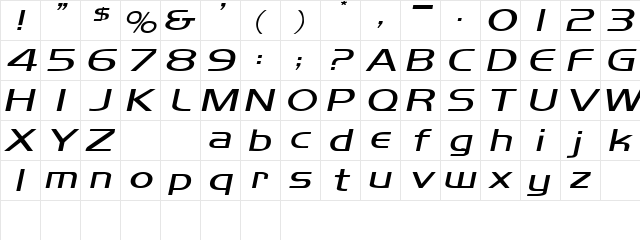
MikityExtended Italic Font Preview
MikityExtended Italic
MikityExtended Italic Font Details
Design Context for MikityExtended Typeface
MikityExtended is a composed and adaptable typeface that performs quietly and consistently across a wide range of design contexts. Its italic angle brings a sense of urgency and motion to the letterforms.